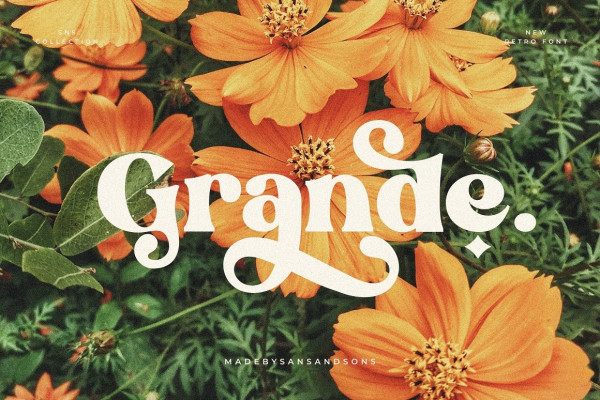
Grande Retro Font
Grande Retro Font – Modern Retro Font by Sans and Sons, with Fun and Elegant Style is perfect for branding, logos, invitation, master heads, and more.